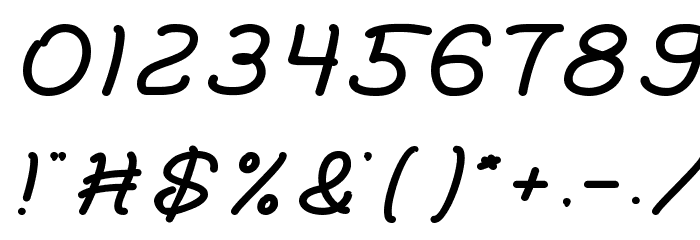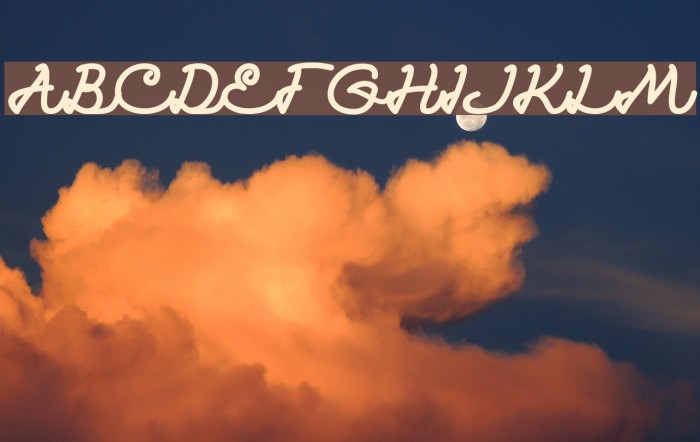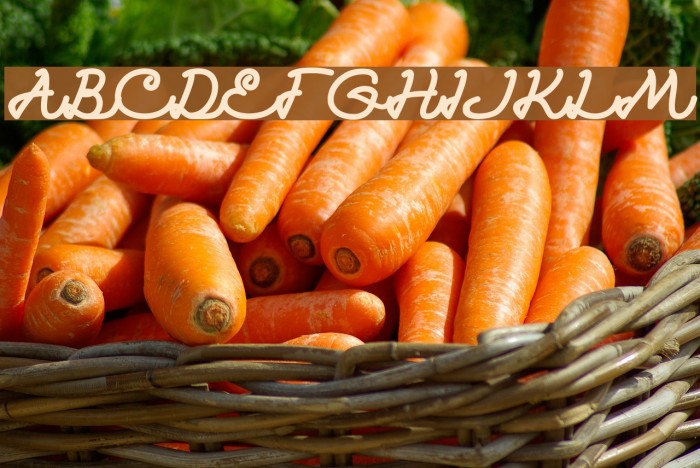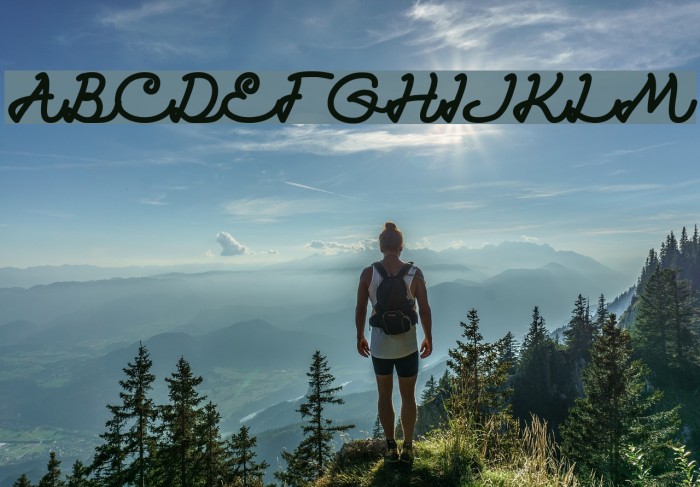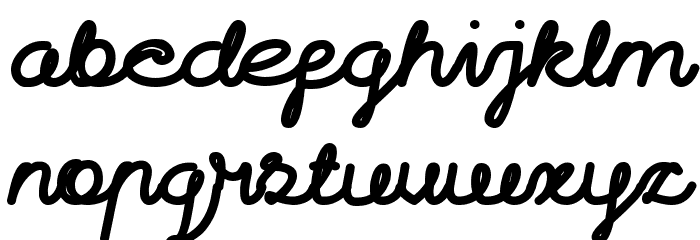
Catatan Harian Bold Font
This font features a bold, cursive style with smooth, flowing lines that create a sense of movement and elegance. The characters are connected, giving it a handwritten feel, yet the boldness adds a modern twist. The uppercase letters maintain a consistent height, while the lowercase letters have a slight slant, enhancing the cursive effect. The numerals are clear and distinct, matching the overall style of the alphabet. Special characters are included, maintaining the same bold and flowing characteristics. This font is both stylish and readable, making it versatile for various design needs.
A bold, cursive font with smooth, flowing lines and a modern, handwritten feel.
• Proposed Projects: Ideal for wedding invitations, personal branding, greeting cards, and elegant logo designs.